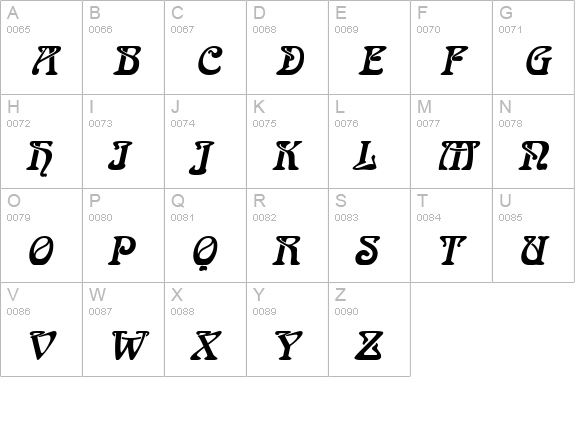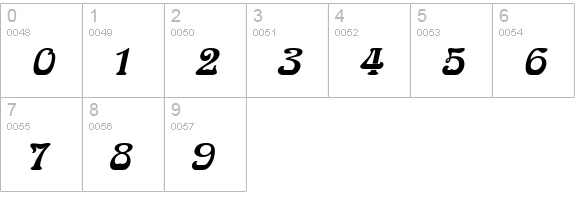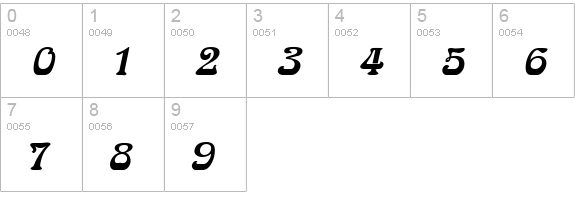
Discover the exquisite elegance of Aidan BoldItalic font, a captivating typeface that exudes sophistication and style. Its bold and italic design adds a touch of flair to any project, making it perfect for headlines, logos, and branding materials. The sleek and modern look of Aidan BoldItalic font is sure to make a statement and leave a lasting impression on your audience. Best of all, Aidan BoldItalic font is completely free to download at FontsMarket.com. Embrace the versatility and creativity that this beautiful font has to offer, and elevate your designs to new heights. Download Aidan BoldItalic font today and unlock its endless possibilities for your next project.